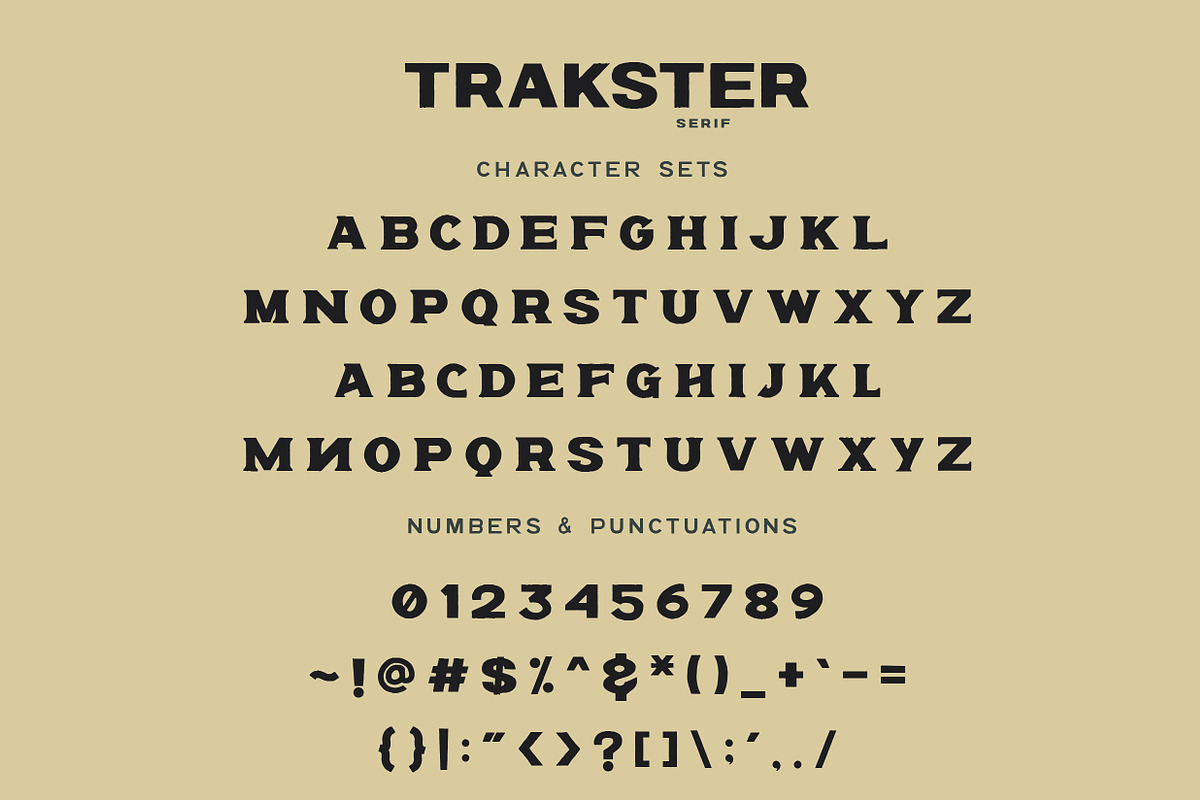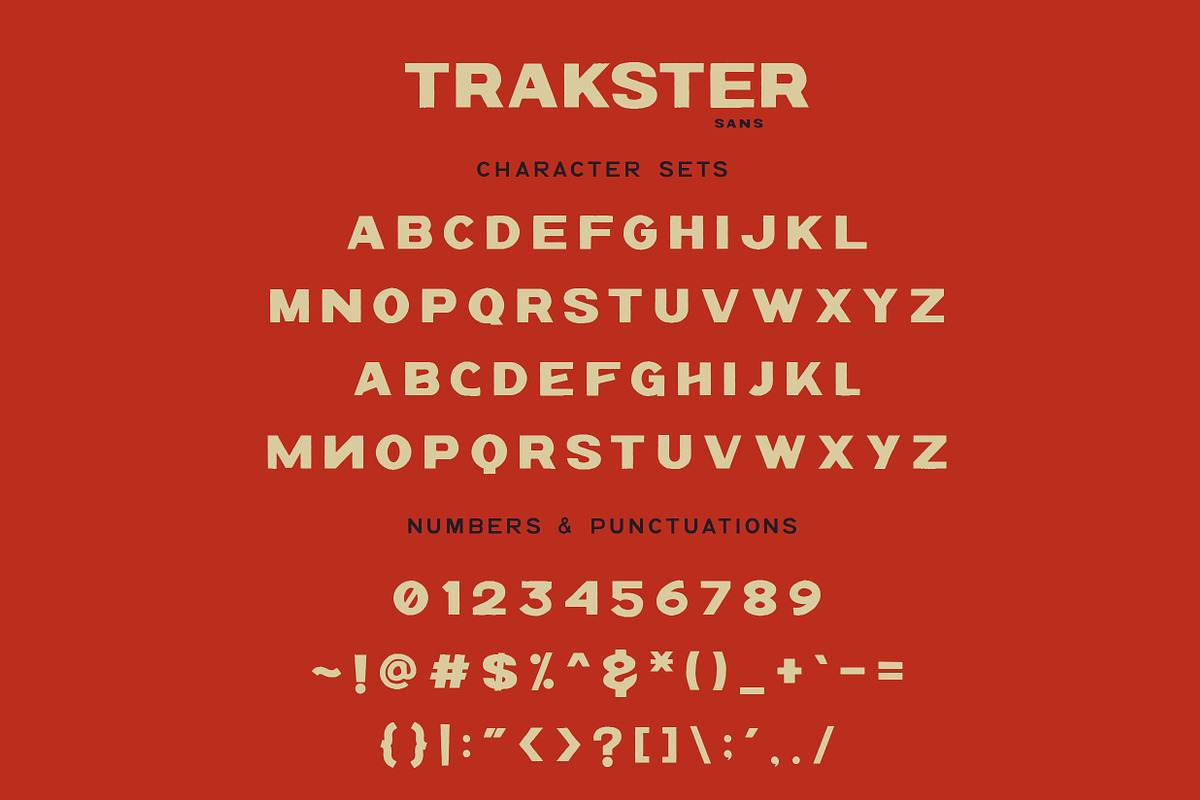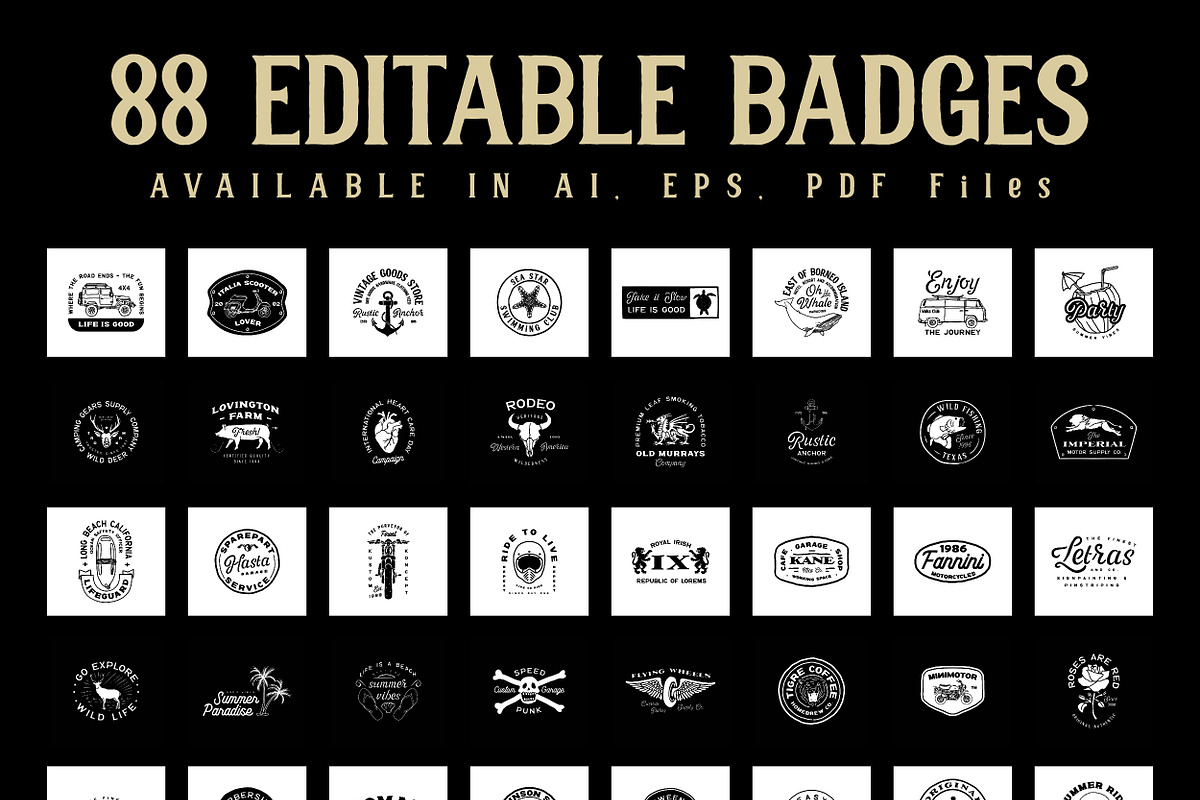
The 888 Lucky Bundle
Congratulations!
You came to the right place. Get ready to feast your eyes with the biggest bundle we've ever made. Please welcome, The 888 Lucky Bundle!. A really big set of 8 fonts and 88 (fully editable) badges with illustration. Throw away the limitations, cause there's no limits with it.
C O N T E N T S
Hammet : A swashy handmade script with stencil style, really fits for the brand name, with the composition of sans-serif typeface around it.
Rodenda : A strong monoline script square style font, just in case you want something stronger, bold, and still eye catching without losing the vintage vibe, you got it right away.
Noswatt : A square round corner sans-serif font, really versatile, fit with any typeface. Try it.
Noswatt Serif : Another style from the sans, to expand the possibility of those versatileness
Notstar : Bring you another different style of the serif font, a lil bit contrast thick and thin body with still keeping the vintage vibe, you got nothing to loose using this one as a pair to anything.
Trakster : A bold sans serif font with square body. Has the same feel like the Noswatt, but a lil stronger and tougher.
Trakster Serif : Another style, now with the serif, just like what happens to Noswatt Serif.
Moneyroll : My favourite one, super contrast thick and thin with the wide body style, really different with the other, but the possibility to pair still there. You can see it in the badges pack.
88 Badges Pack : Hand drawn badges with illustration, the text and objects are fully editable. All vector files. Just install all the fonts above and then open the vector files of these badges, get ready to rocking your brand right away! Available in AI, EPS, and PDF formats.